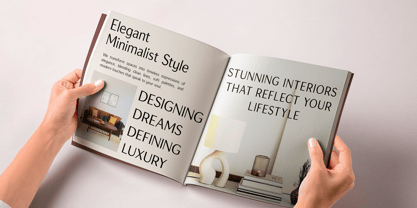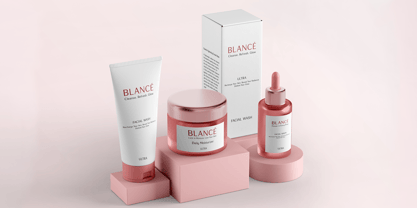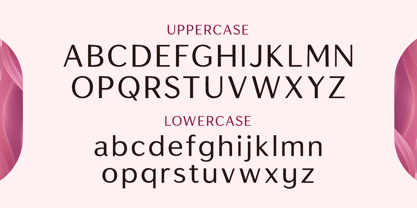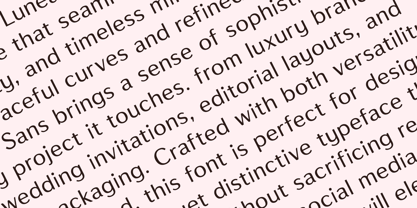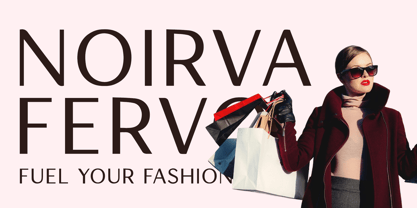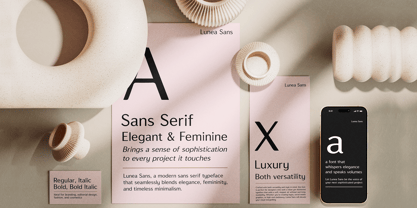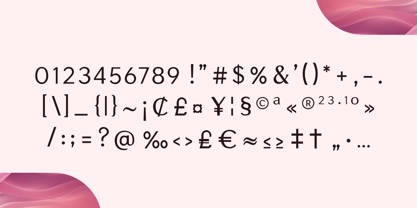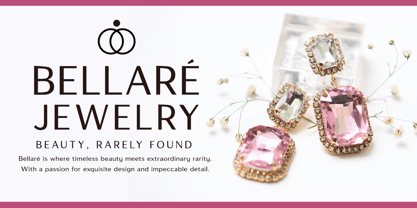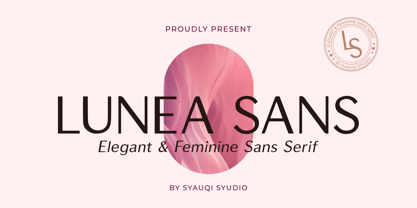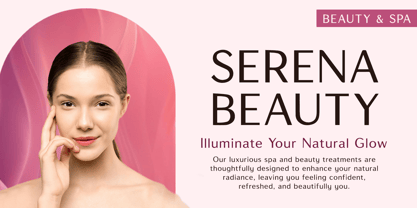
Lunea Sans
The Lunea Sans Font Family was designed by Muhammad Asroful Umam and published by Syauqi Studio. Lunea Sans contains 4 styles and family package options. More about this family
Lunea Sans – An Elegant & Feminine Sans Serif Font
Discover Lunea Sans, a modern sans serif typeface that seamlessly blends elegance, femininity, and timeless minimalism. Designed with graceful curves and refined proportions, Lunea Sans brings a sense of sophistication to every project it touches — from luxury branding to wedding invitations, editorial layouts, and beauty packaging.
Crafted with both versatility and style in mind, this font is perfect for designers who seek a clean yet distinctive typeface that adds a soft, elegant flair without sacrificing readability. Whether you're creating logos, social media graphics, or high-end stationery, Lunea Sans will elevate your visual storytelling.
Features:
Elegant, minimalist letterforms
Full uppercase & lowercase
Numbers & punctuation
Multilingual support
Ideal for branding, editorial design, fashion, and cosmetics
Perfect For:
Luxury & fashion branding
Feminine logos
Beauty & skincare packaging
Wedding stationery & calligraphy alternatives
Instagram quotes & highlight covers
Modern web design
Let Lunea Sans be the voice of your next sophisticated project — a font that whispers elegance and speaks volumes.